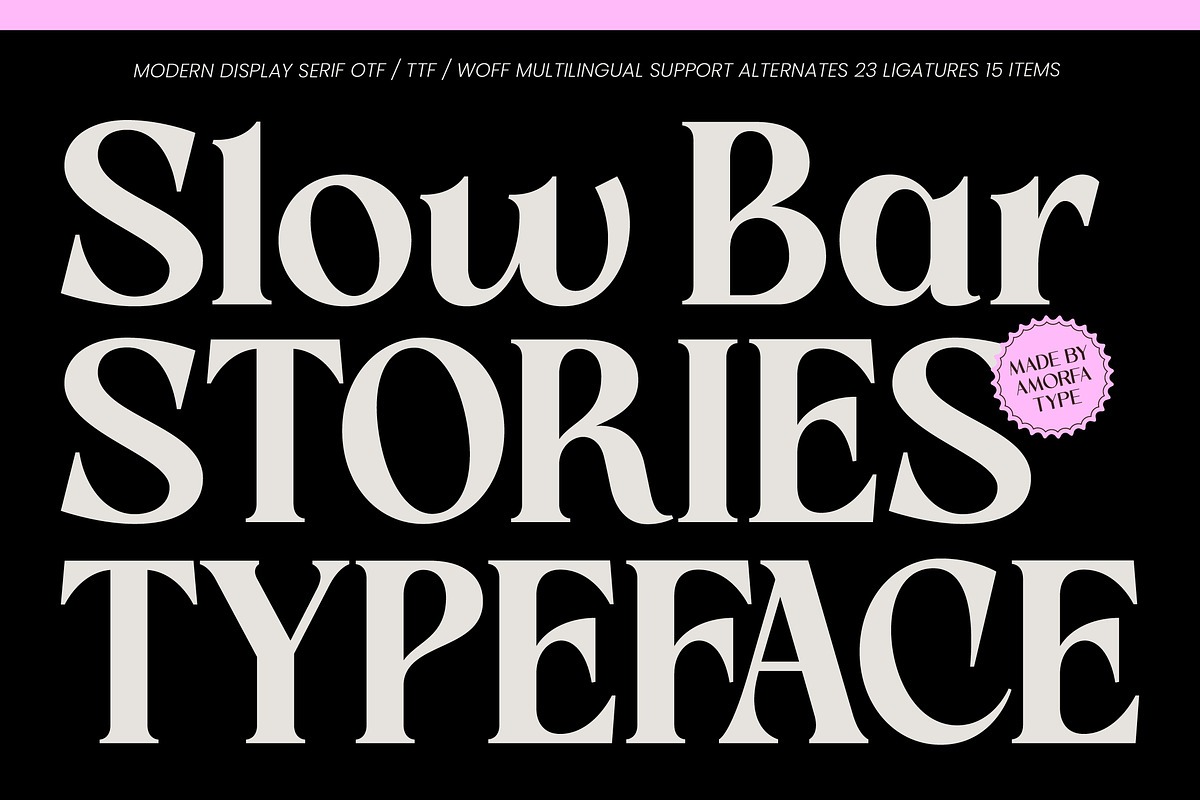
Slow Bar Stories – Modern Serif Font
Slow Bar Stories – Modern Serif Font brings a balanced structure and contemporary look, making it suitable for both digital and print design. Slow Bar Stories is a modern display serif typeface designed with refined proportions, contemporary elegance, and a strong editorial presence. Crafted to deliver sophistication and clarity, this typeface combines timeless serif craftsmanship with modern design sensibilities, creating typography that feels confident, stylish, and visually memorable.
Inspired by luxury publications, premium branding systems, contemporary fashion campaigns, and modern editorial layouts, Slow Bar Stories offers a clean yet expressive personality that elevates every visual composition. Its balanced structure and elegant details make it an excellent choice for designers seeking typography that communicates professionalism, quality, and modern sophistication.
Whether used for branding, editorial headlines, magazines, packaging, websites, or visual identity systems, Slow Bar Stories provides a refined typographic voice that enhances both creative and commercial projects.